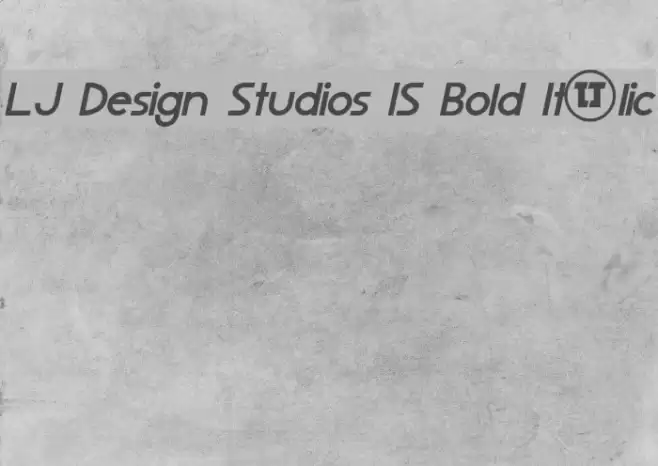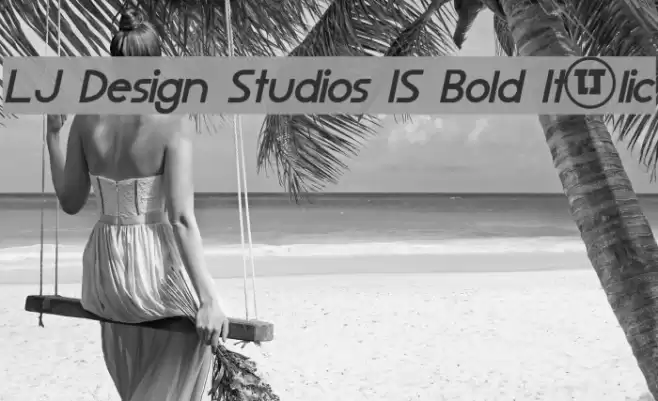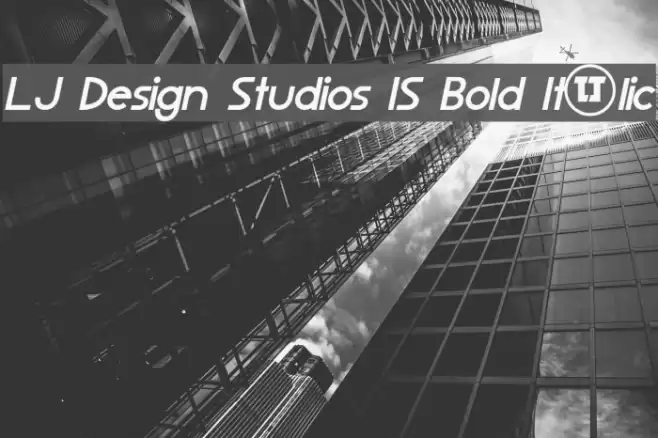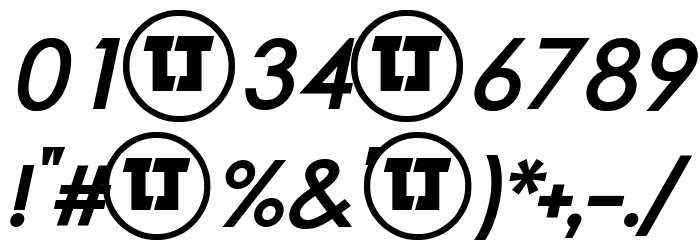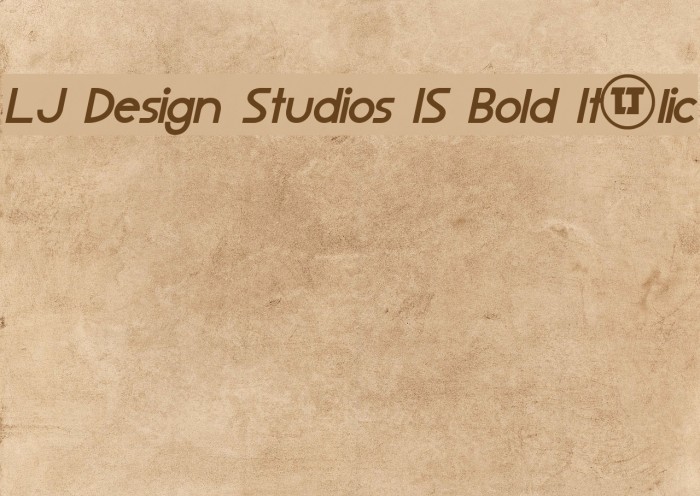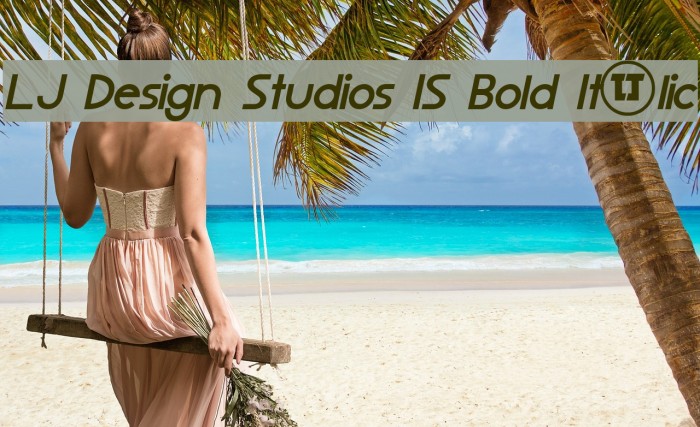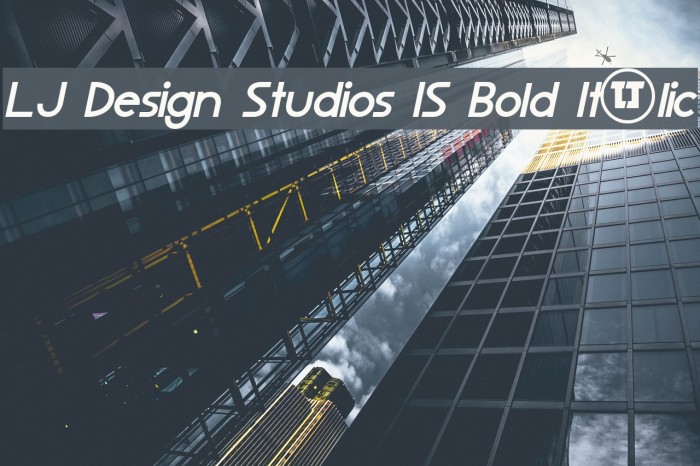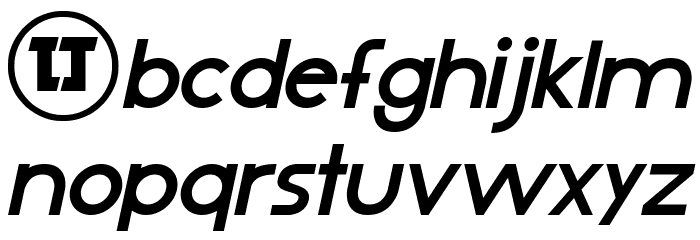
LJ Design Studios IS Bold Italic Font
LJ Design Studios IS Bold Italic Description
This font features a bold and italicized style, characterized by its clean and modern sans-serif design. The letters are slightly slanted, giving a dynamic and forward-moving appearance. The strokes are consistent in thickness, providing a uniform look across all characters. The uppercase and lowercase letters maintain a harmonious balance, while the numerals and special characters are designed to match the overall aesthetic. This font is versatile, suitable for various applications where a contemporary and assertive typeface is desired.
A bold, italicized sans-serif font with a modern and dynamic style from Uncategorized fonts.
- Proposed Projects: Ideal for branding, advertising, headlines, and digital media where a strong and modern impression is needed.
- Use Case: Headlines, Logos, Branding